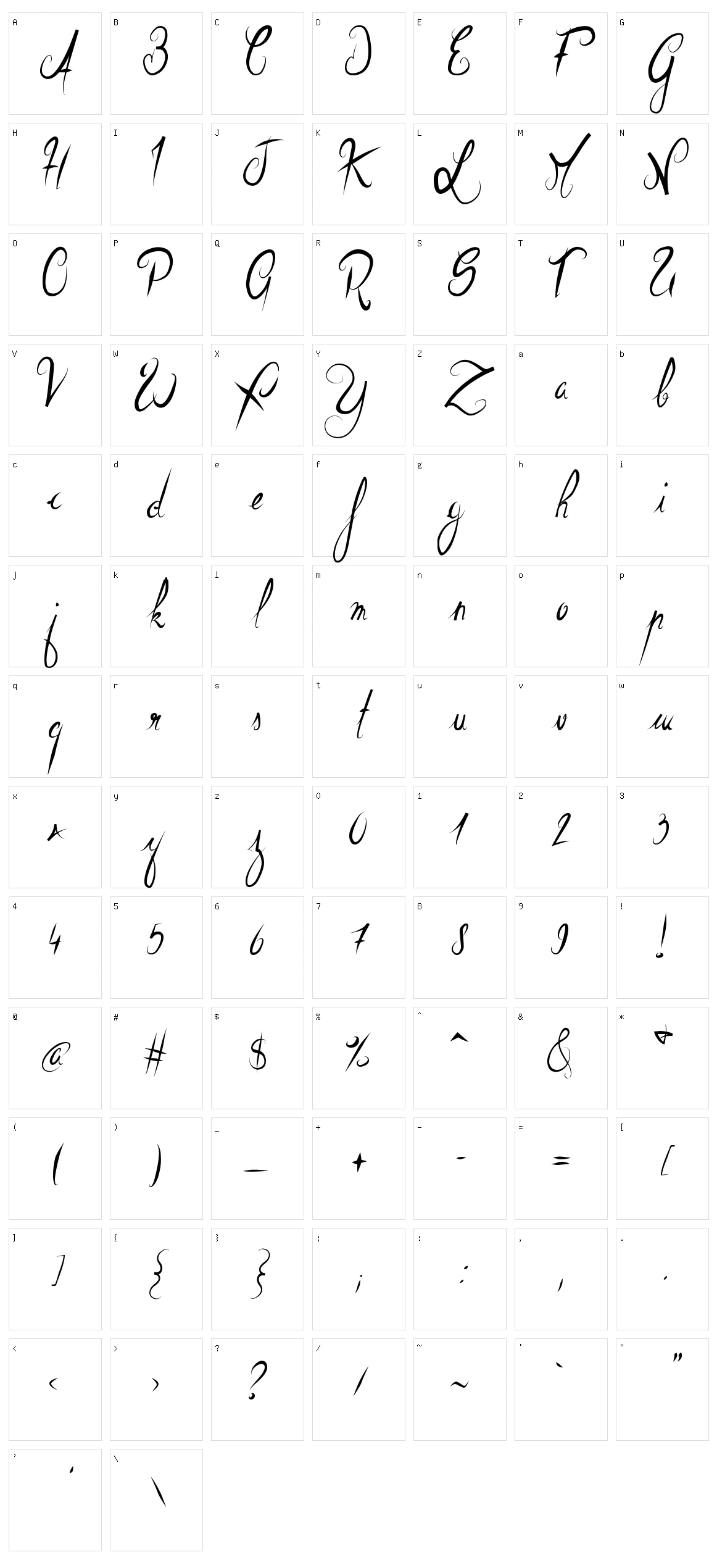
The free font Elegant Dragon is carefully designed by Lyric Dragon, showcasing a thoughtful balance of creativity and usability and falls under the Script font style. When you download the ZIP file, it contains only 51.1 KB of font files, making it lightweight and quick to download. Please review the license details below to understand permitted usage and distribution rights. If license information is not available, we recommend using this font for personal projects only or contacting the author directly for commercial usage permissions.